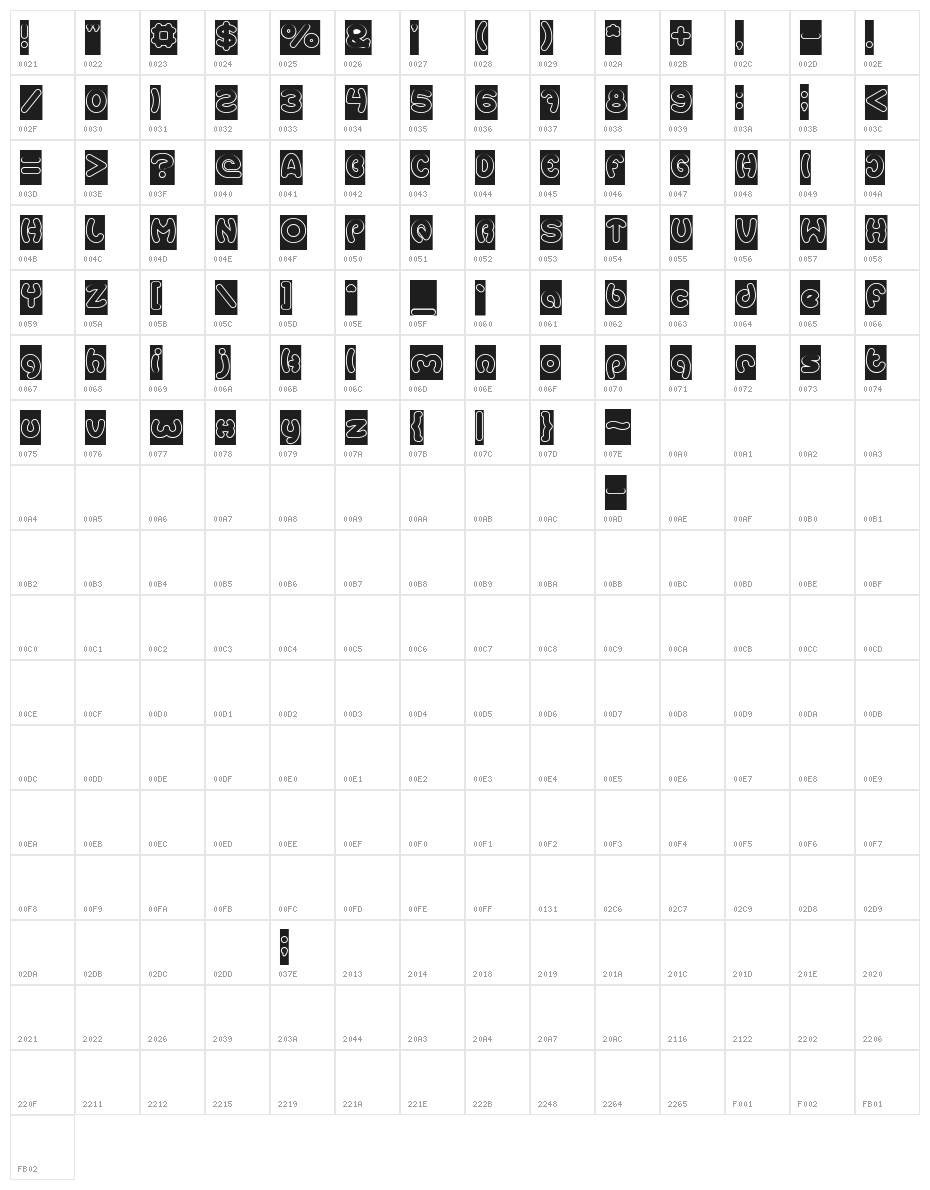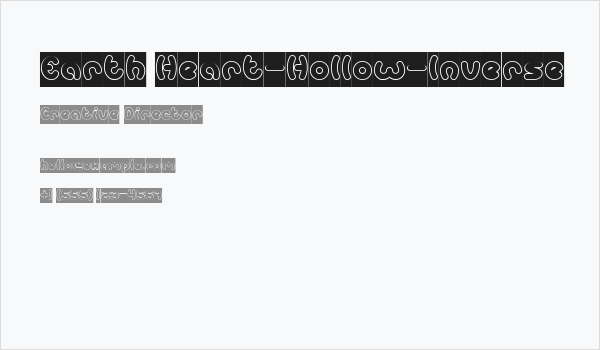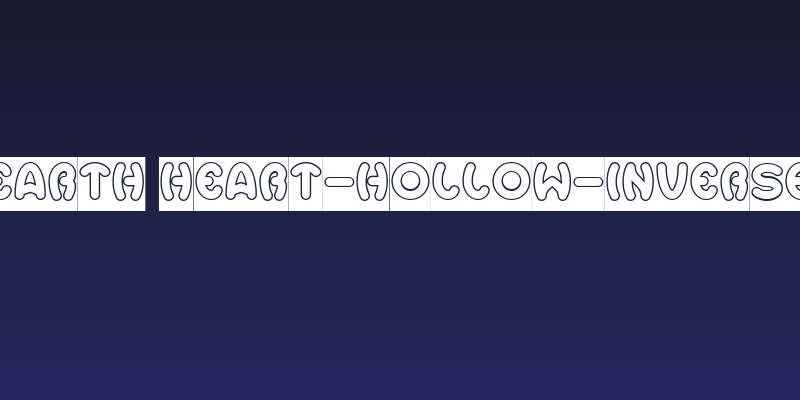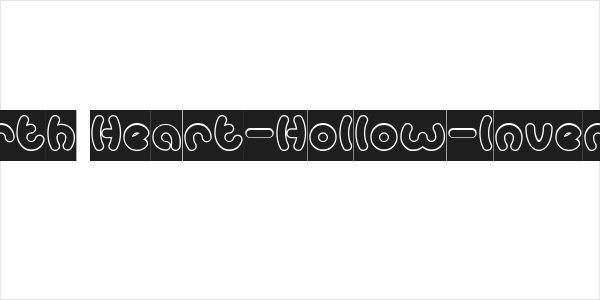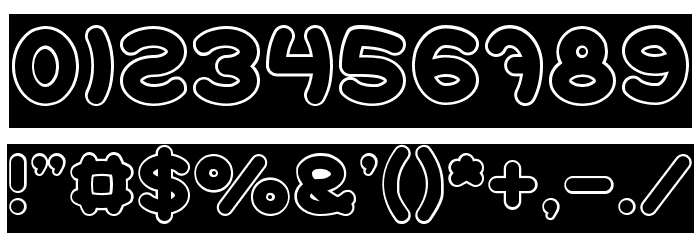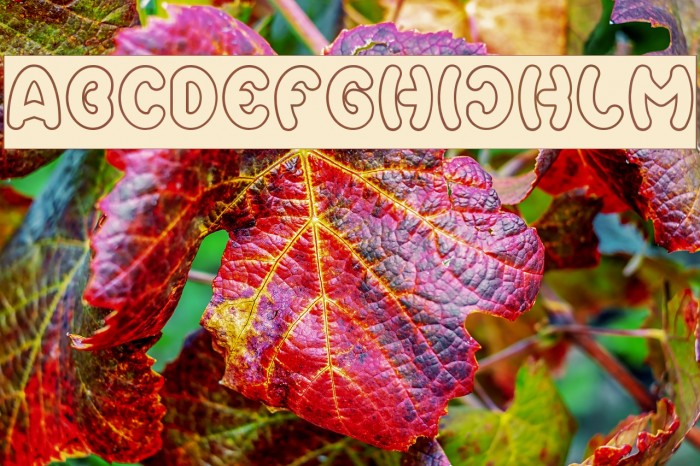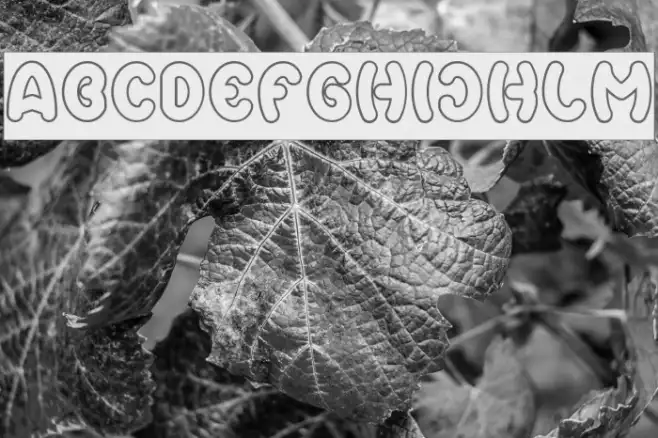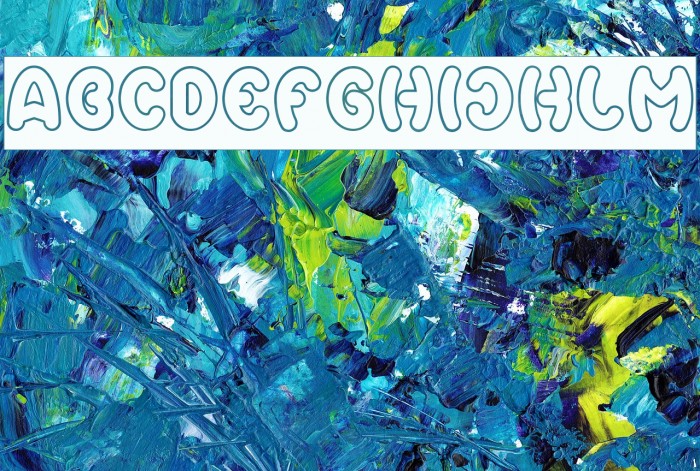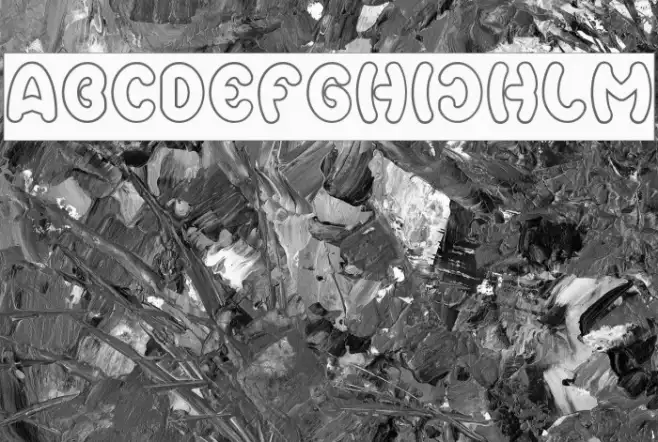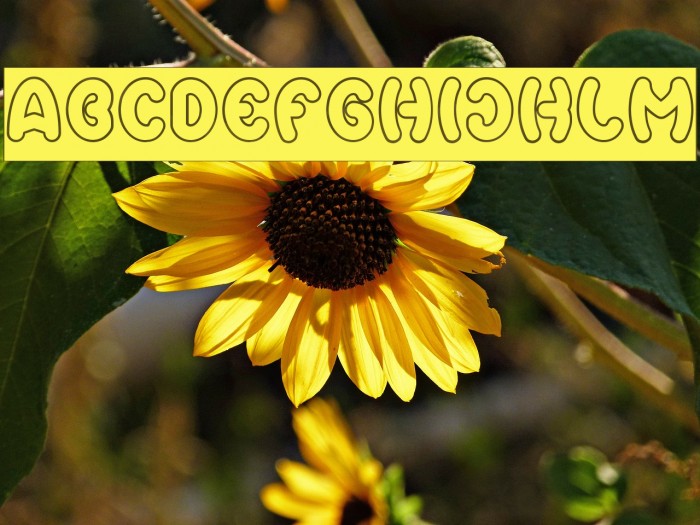
Earth Heart-Hollow-Inverse Font
Earth Heart-Hollow-Inverse Description
This font features a playful and whimsical design with hollow, rounded characters that give it a unique, eye-catching appearance. Each letter and number is outlined with a bold stroke, creating a sense of depth and dimension. The characters have a consistent width and a smooth, flowing style that adds to the overall charm. The font includes both uppercase and lowercase letters, numerals, and a variety of special characters, making it versatile for different design needs. Its distinct style makes it suitable for projects that require a fun and engaging visual element.